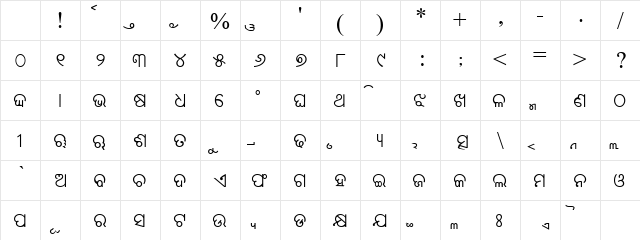
Complete Maan Normal Odia Akhayara glyph index. Displaying only characters natively supported by Maan Normal Odia Akhayara font.
Maan Normal Odia Akhayara is a composed and adaptable typeface that performs quietly and consistently across a wide range of design contexts.